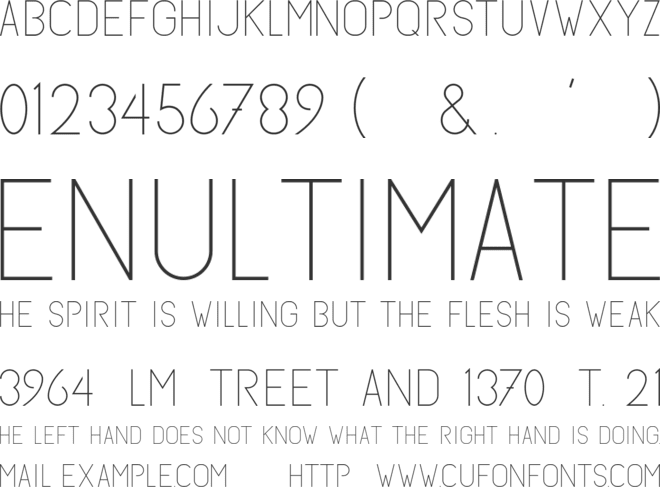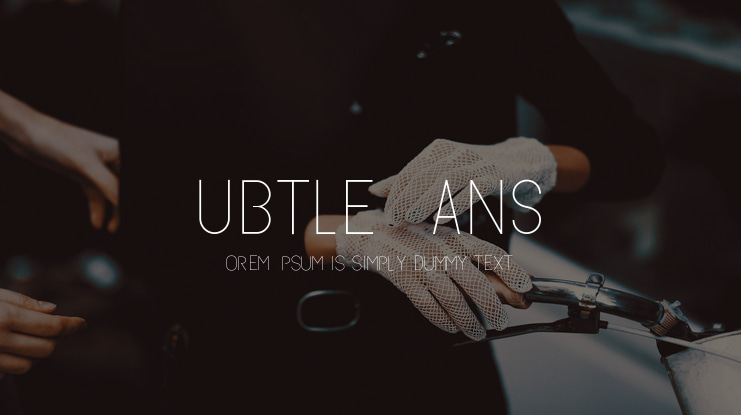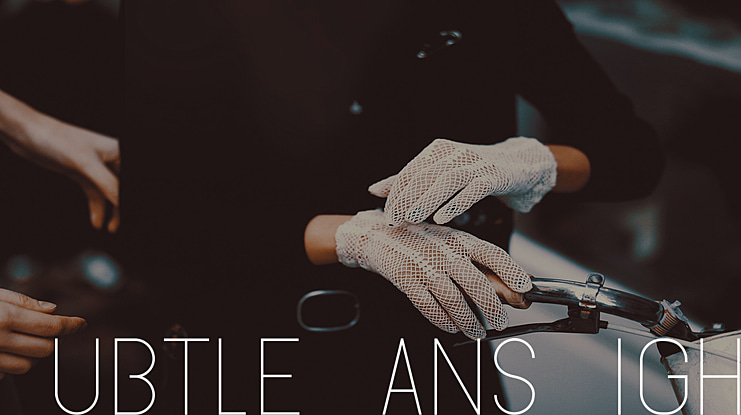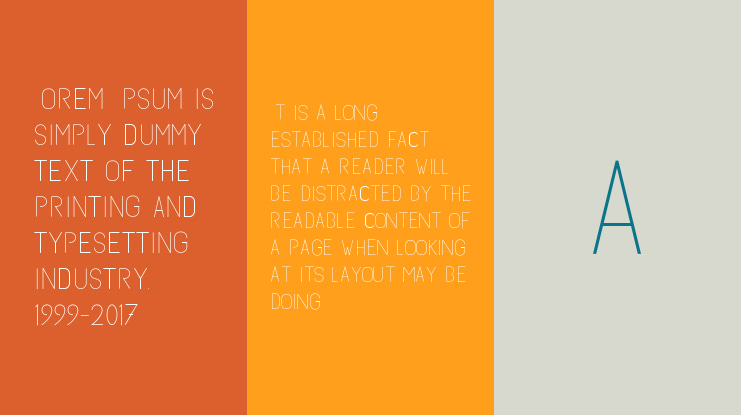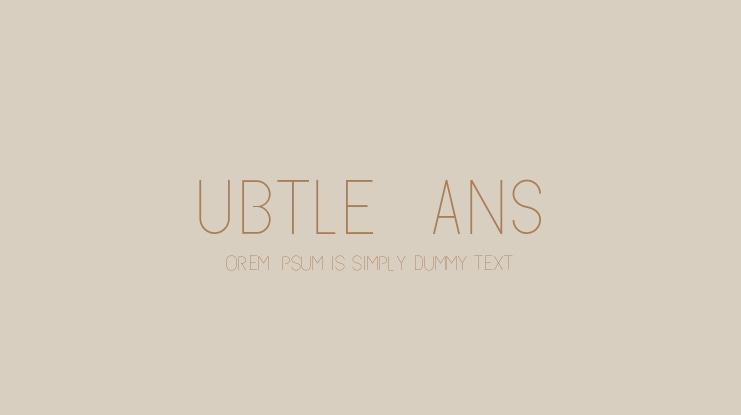
Subtle Sans Font Family
Simple lines, classic shapes. Comes in 3 weights. The UltraLight is only for HUGE titles, use Regular or Light for smaller sizes.